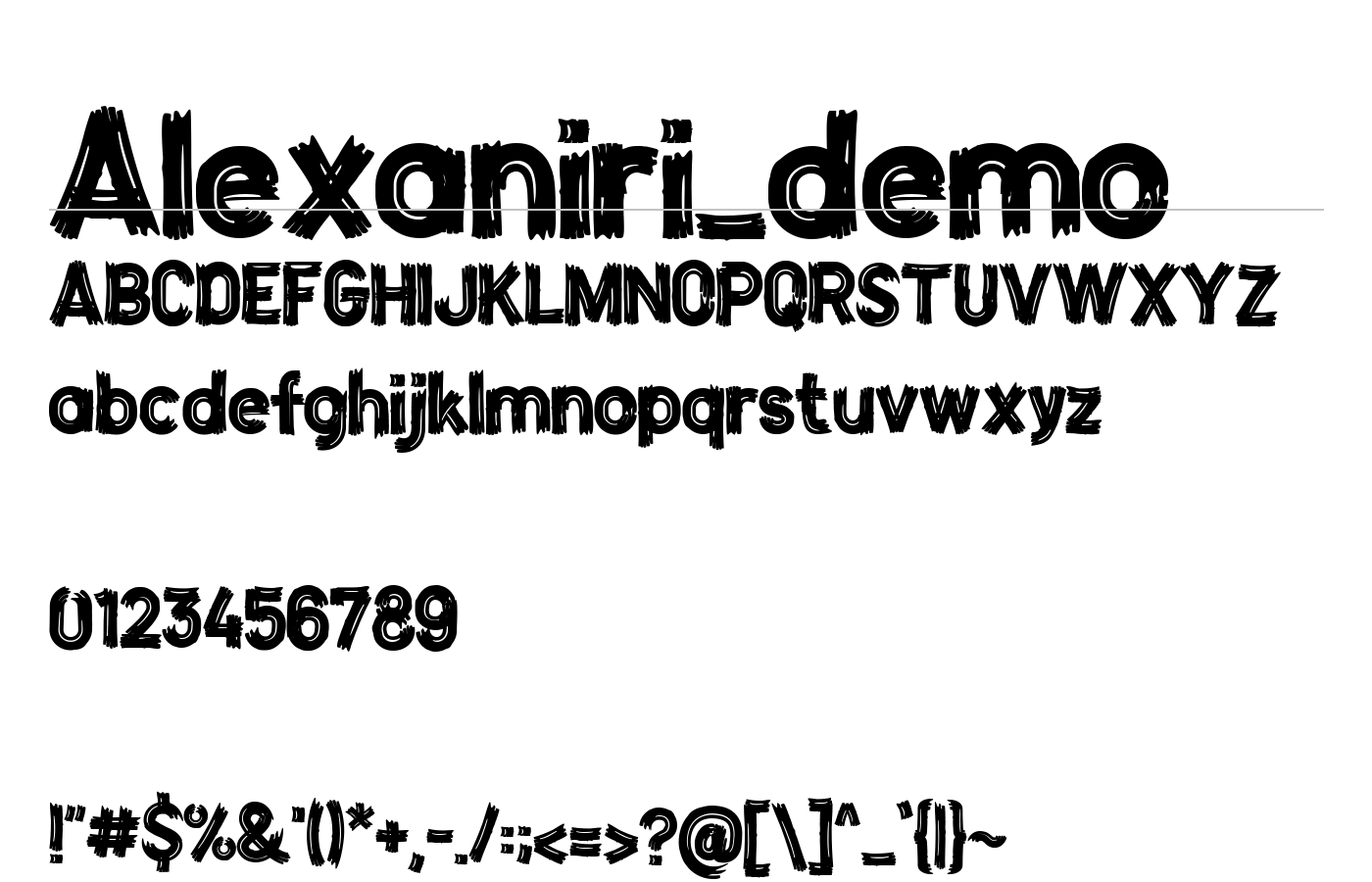
Alexaniri_demo is a bold, playful sans serif font with a hand-drawn, textured style that adds character and energy to its letters. Its wide, uniform strokes and quirky edges make it ideal for creative and informal designs, such as posters, logos, or anything needing a fun, eye-catching vibe. This font works best in headlines and display settings where its unique personality can stand out.
Alexaniri_demo Font